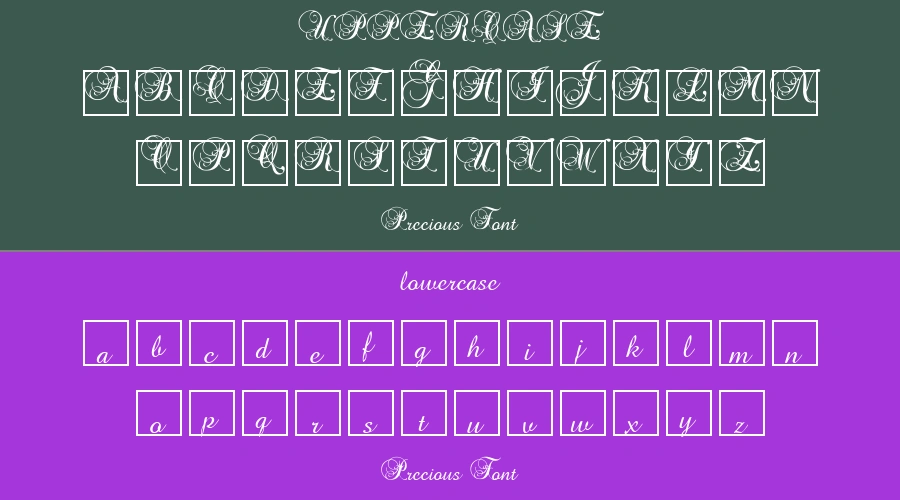
About Precious Font
Designed with precision, Precious Font merges hairline details with flexibility in every character. This versatility makes it particularly effective for magazine covers, where integrity and consumer connection directly impact communication quality. Each letterform demonstrates meticulous craftsmanship.
Technical excellence shines through elements like teardrop terminals and display figures, enhancing typographic versatility. In retail environments settings, Precious Font proves its worth through superior detail preservation. The thoughtful execution of x-height and standards alignment ensures professional results.